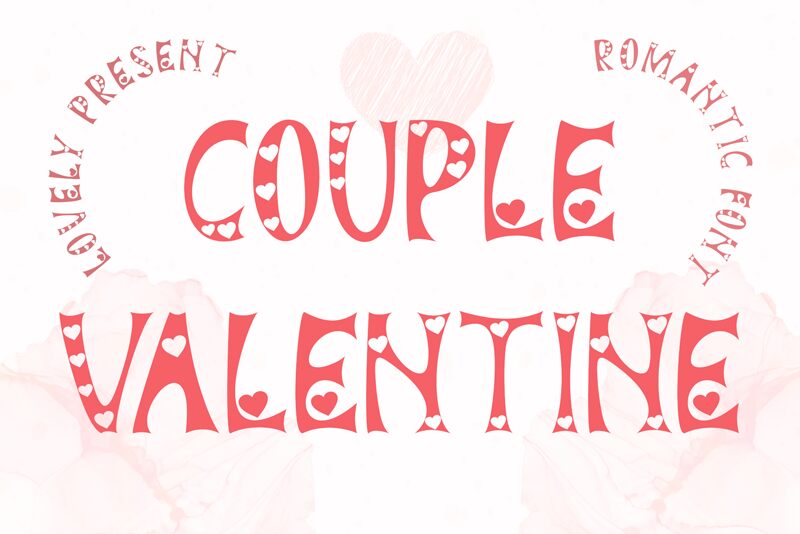
Introducing Couple Valentine by Selvia Design 2023! This romantic valentine font is perfect for creating wedding invitations, love letters, and Valentine's Day cards. With its holiday feel, it can also be used to design decorations for special occasions and events.